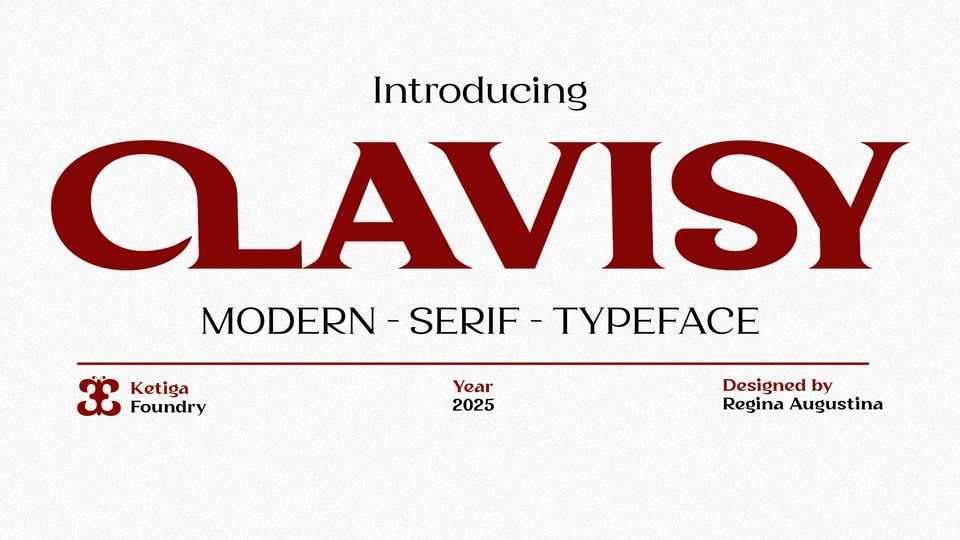
Download Clavisy font, a modern serif typeface built for designers who appreciate refined details and contemporary elegance. Its balanced contrast, smooth curves, and expressive italics make it ideal for fashion, beauty, editorial layouts
Designer: Ketiga Foundry